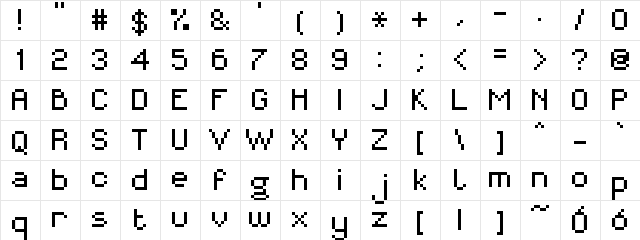
MiniForma2 Regular
Design Context for MiniForma2 Typeface
MiniForma2 is a composed and adaptable typeface that performs quietly and consistently across a wide range of design contexts.